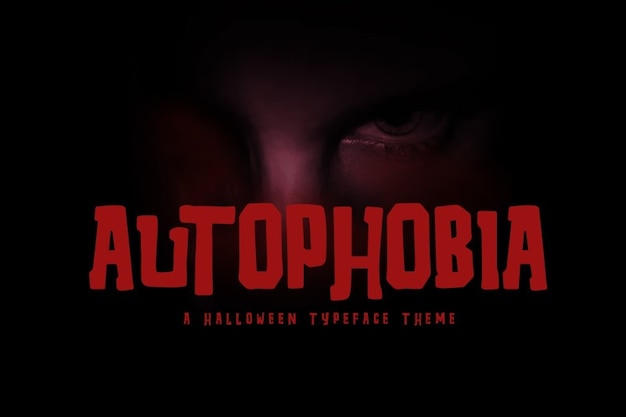
Autophobia
Autophobia Font
Khurasan Studio
The ultimate font for Halloween enthusiasts who crave spine-tingling designs. With a truly eerie and unsettling vibe, this font's jagged and twisted letters embody the spirit of fear and creepiness. Whether you're crafting spooky invitations, creating chilling posters, or conjuring up a haunted house's signage, "Autophobia" is your go-to choice. It's the perfect way to send shivers down spines and set the stage for a truly hair-raising Halloween experience.